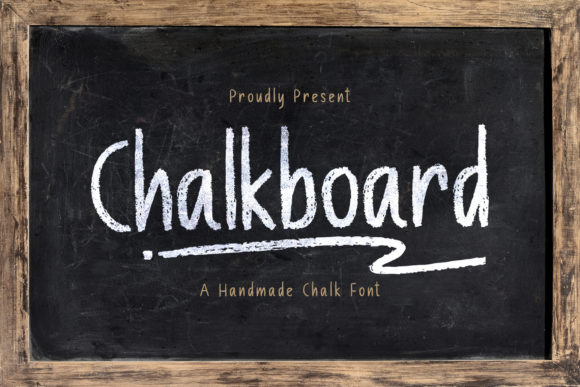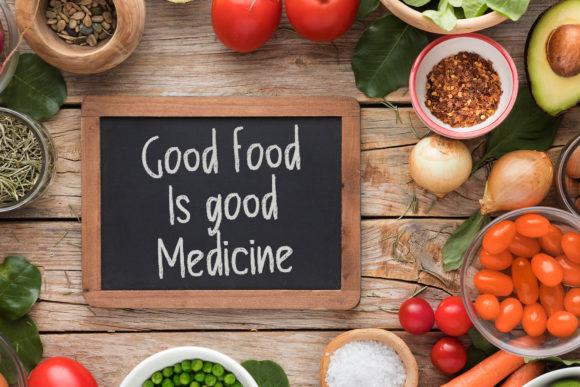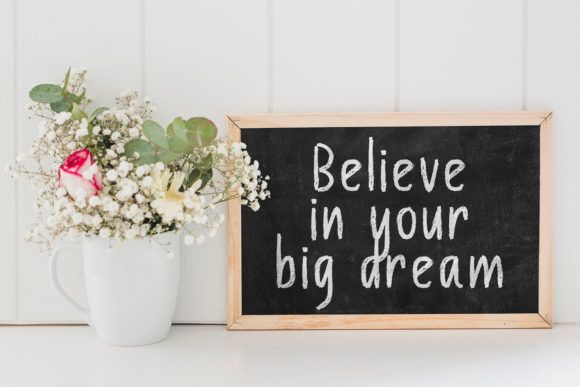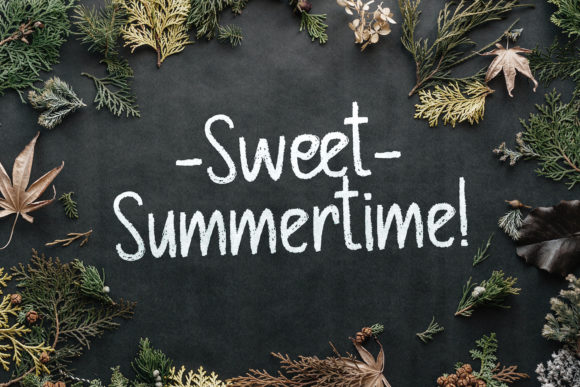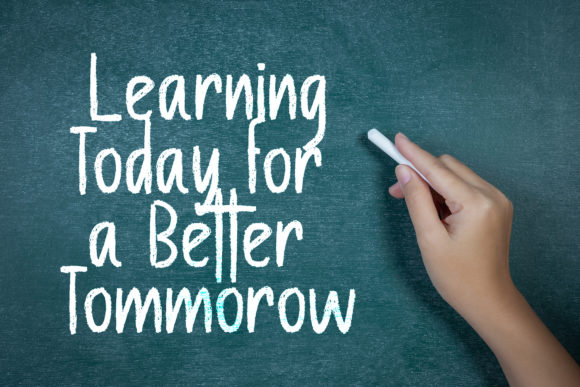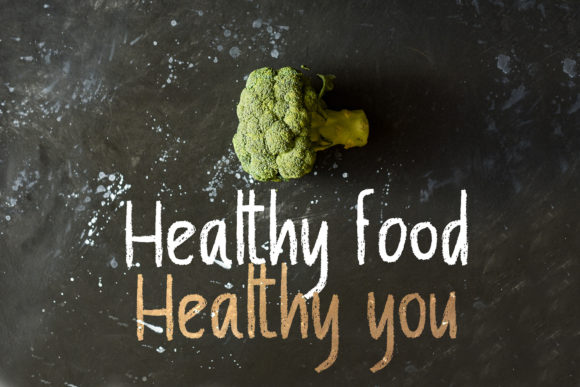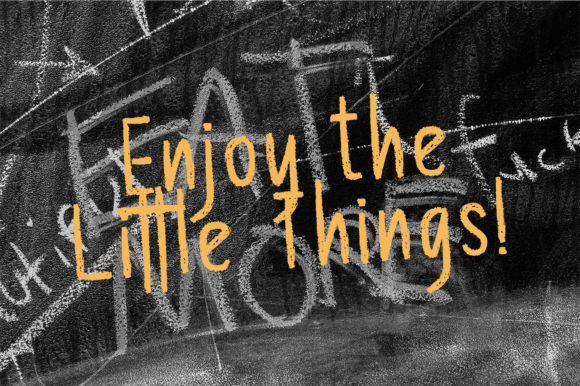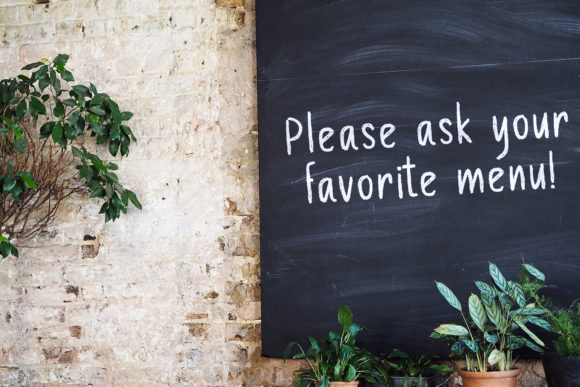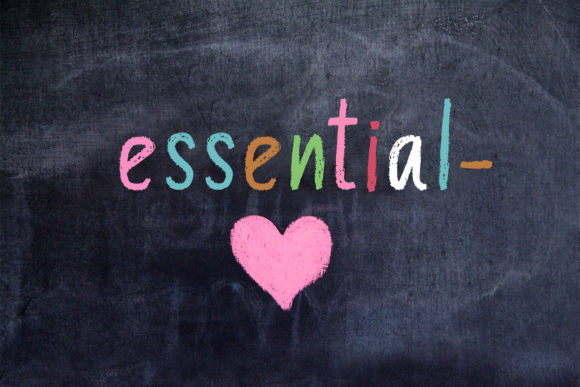
Chalkboard Font
Chalkboard is a simple, well balanced display font. Fall in love with its incredibly versatile style and use it to create spectacular designs!